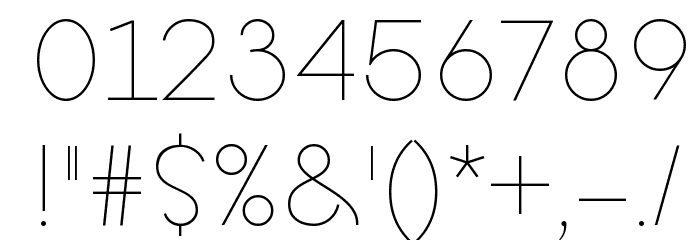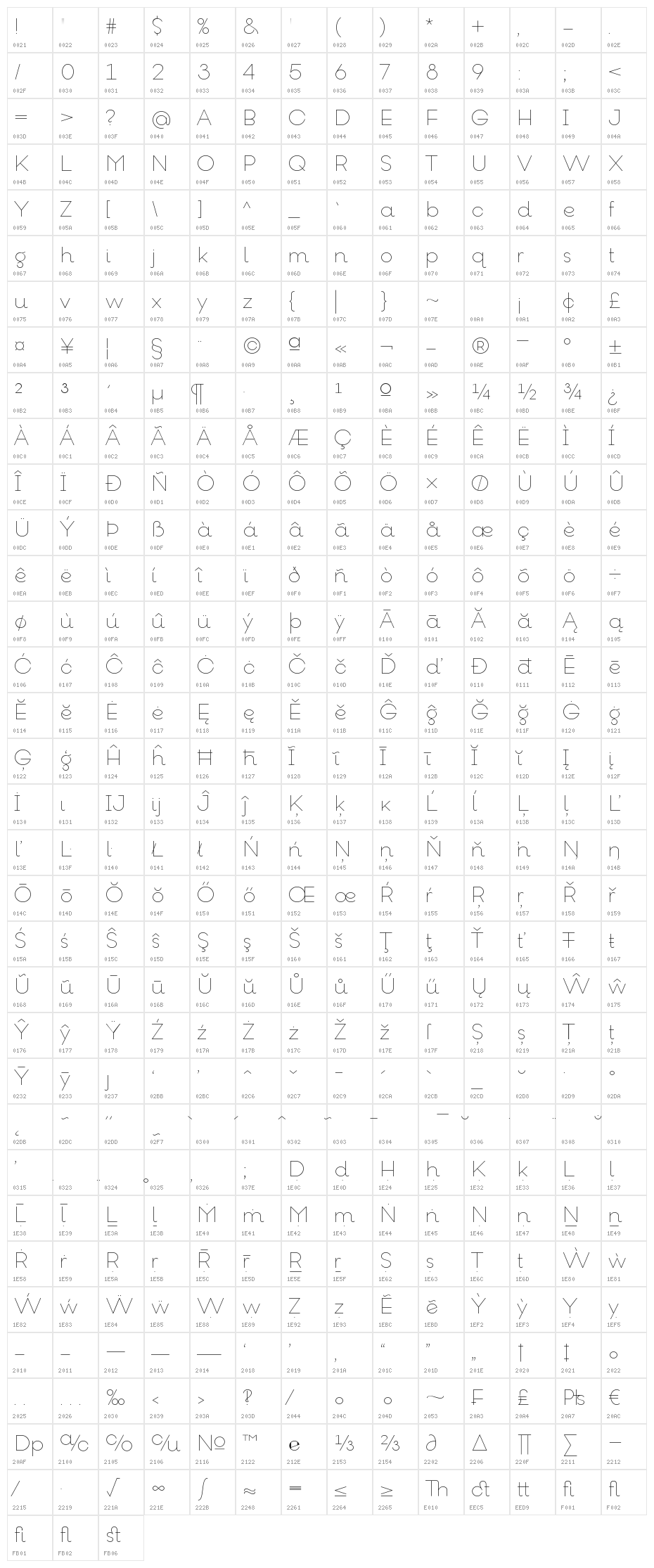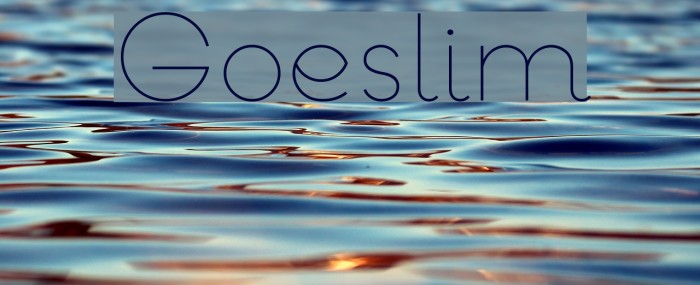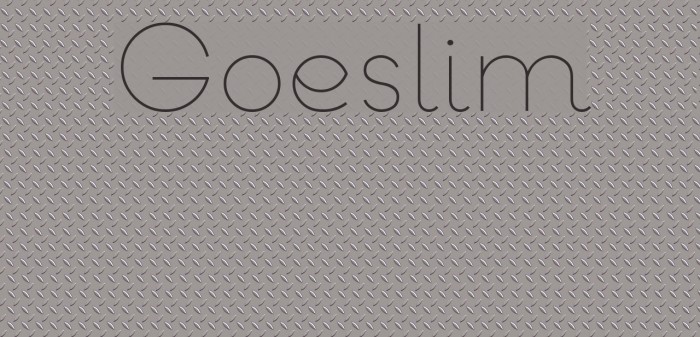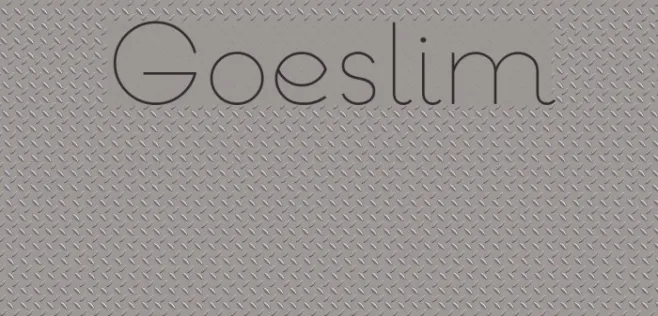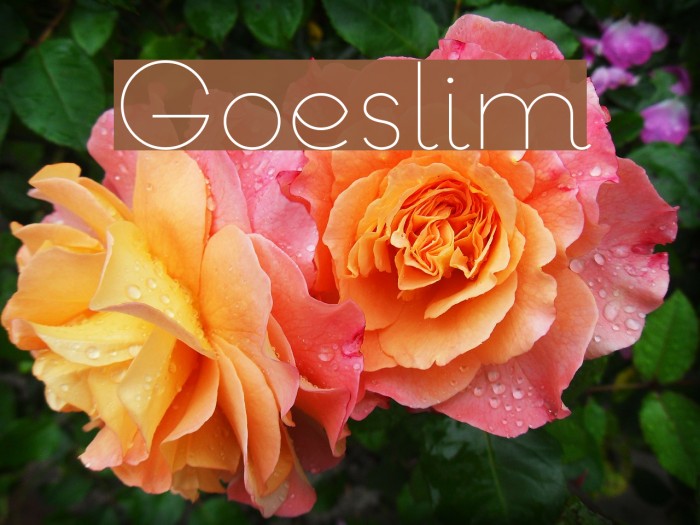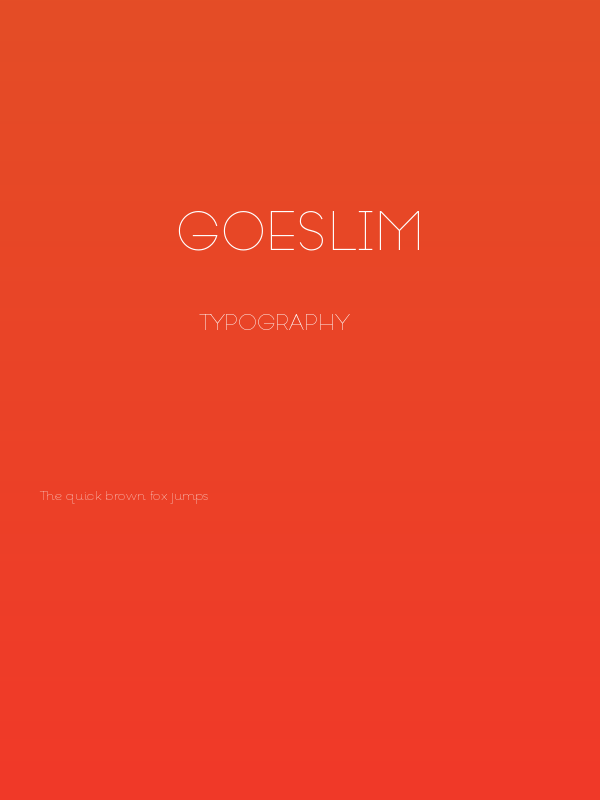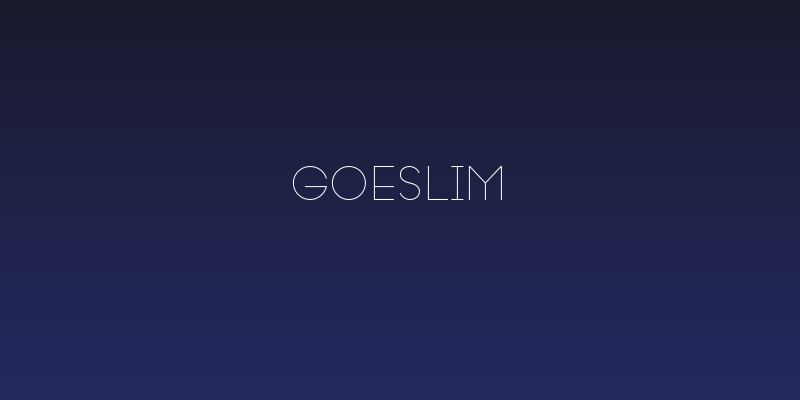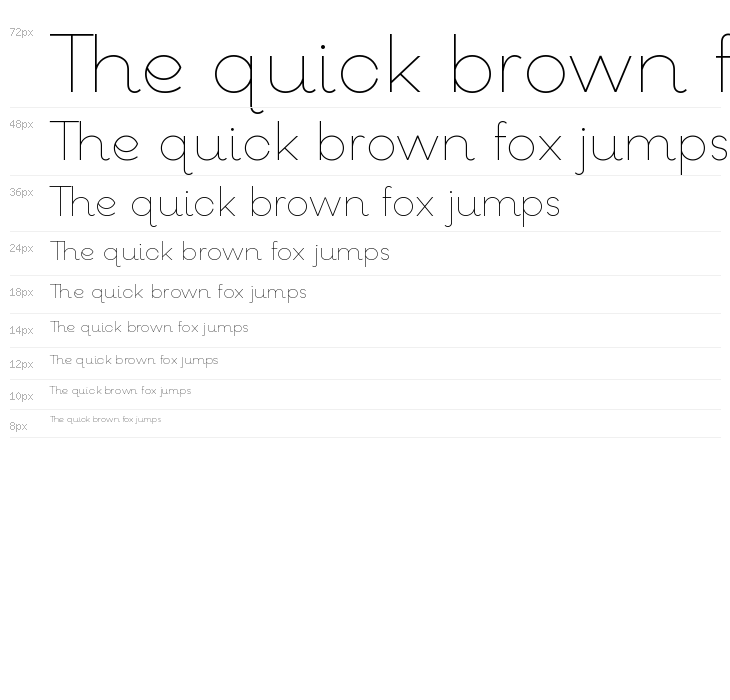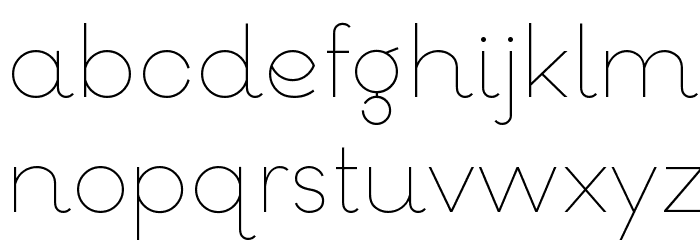
Goeslim Font
Goeslim Description
This font features a clean, minimalist design with thin, uniform strokes that give it a modern and elegant appearance. The characters are well-proportioned and maintain a consistent line weight throughout, contributing to its sleek and sophisticated look. The uppercase letters are tall and narrow, while the lowercase letters have a rounded, friendly feel. The numerals are clear and legible, matching the overall aesthetic of the font. Special characters are included, maintaining the same thin line style, which makes this font versatile for various design needs.